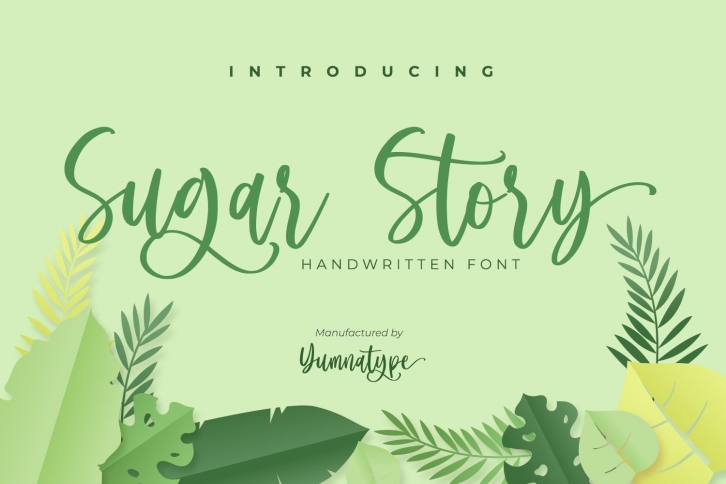
Sugar Story-Sweet Handwritten is a beautiful font that was designed by Yumna Type. It's a great choice for designers and creatives who need such a font. It was released on October 29, 2020 and the file size is 19.83 MB. Sugar Story-Sweet Handwritten may give a more youthful, expressive and casual look to your project. It is a very beautiful, refined, elegant, and high-quality font.